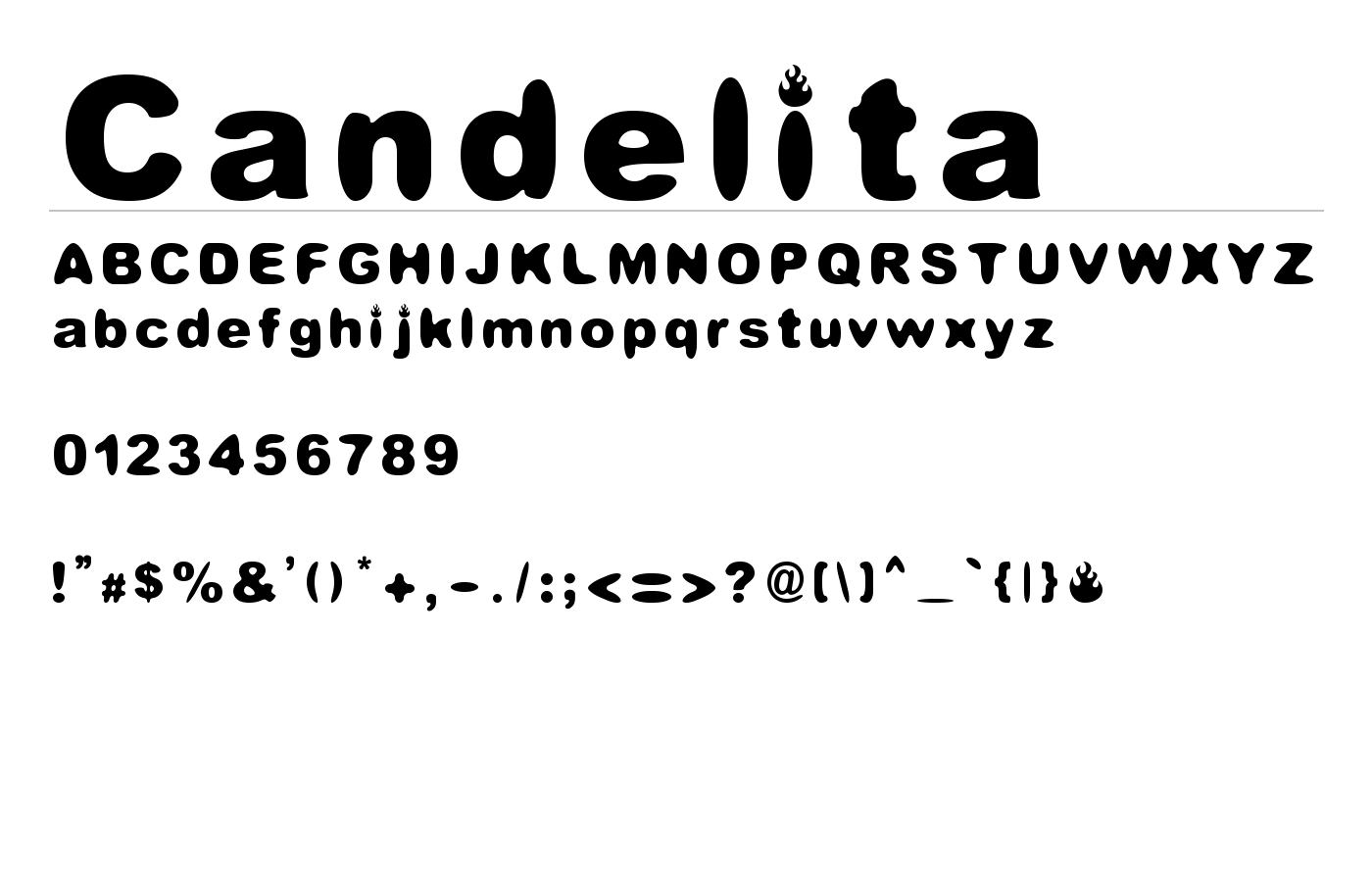
Candelita is a playful, rounded sans serif font with a bold weight and soft, approachable letterforms. Its lively curves and quirky flame details give it a fun, friendly personality that works well for casual branding, children’s content, and creative packaging. This font’s unique charm and clear readability make it perfect for eye-catching headlines and informal designs.
Candelita Font